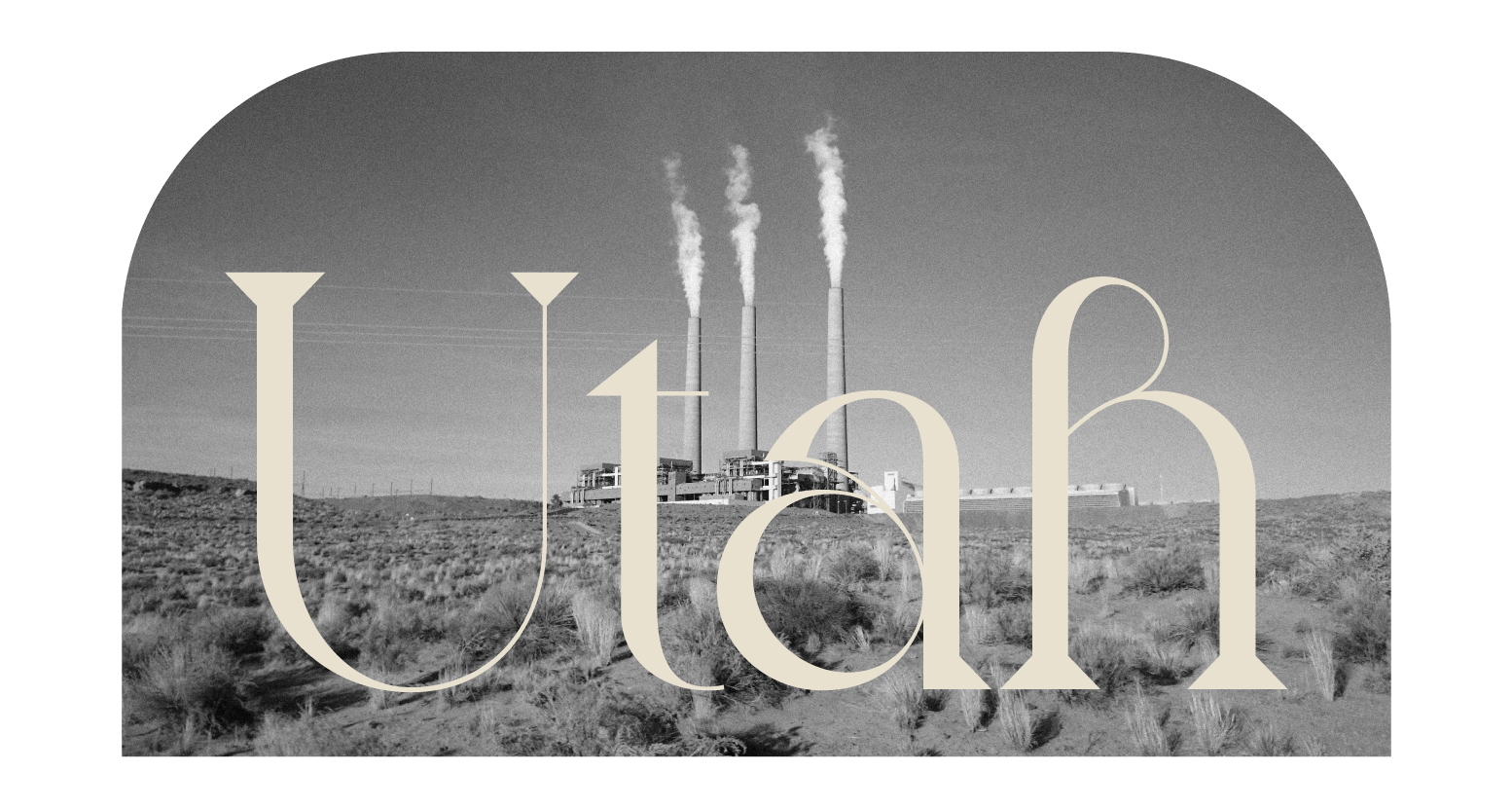
Voyage
• Display - 5 weights
Light, Regular, Medium, Bold, Black
• Release
2020
• Designer
Jérémy Schneider assisted by Liana Korios
In 2024, we have added 3 new weights to the family: light, medium and black. We have also refined certain minor details on all the weights in order to perfect stylistic consistency. Voyage is a romantic and curvy display typeface, useful for headlines, or short to medium lengths texts. From the adventurous eye of the lowercase ‘e’ to the curly ‘h’, Voyage features delicate hairlines for maximum contrasts. We designed 55 stylistic ligatures, 26 variants, which are open-type programmed, the user decides which glyph to alternate. Bon Voyage.
Numbers ligatures
Ligatures
Alternate ampersands
Alternates
Alternates ligatures